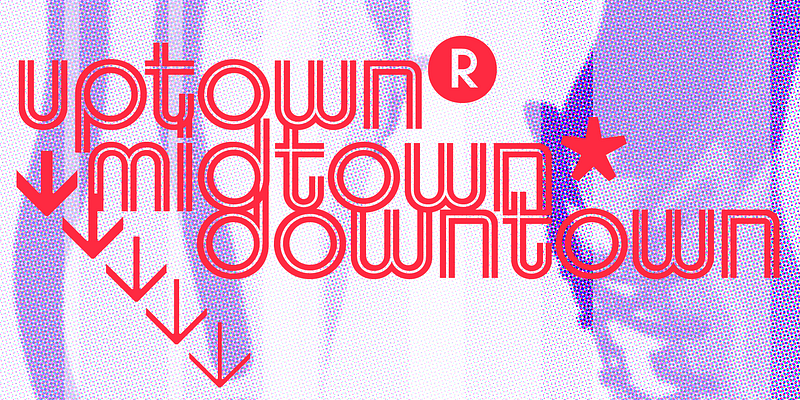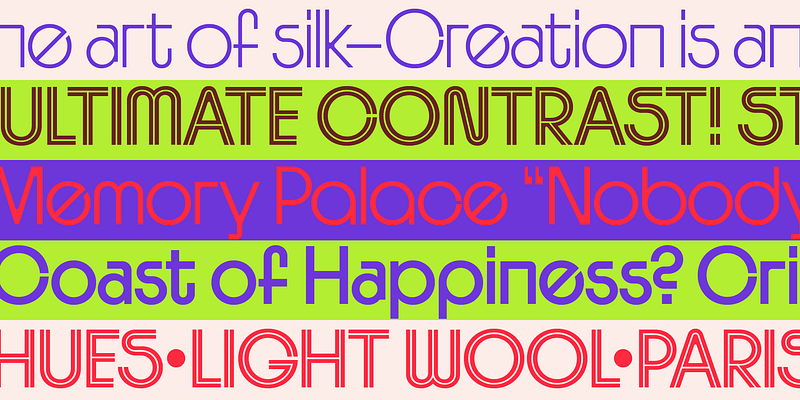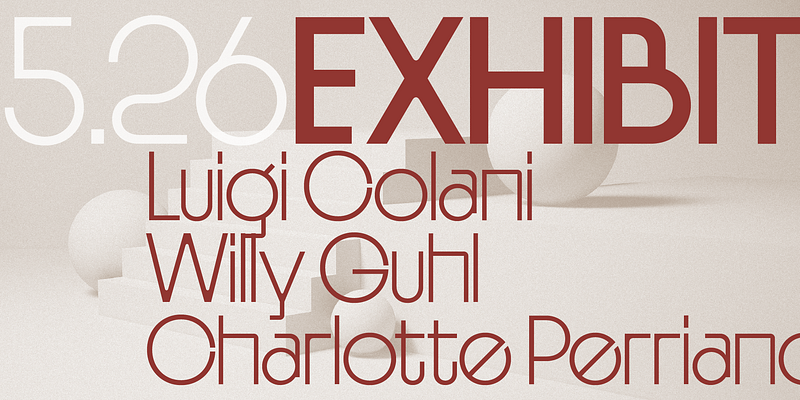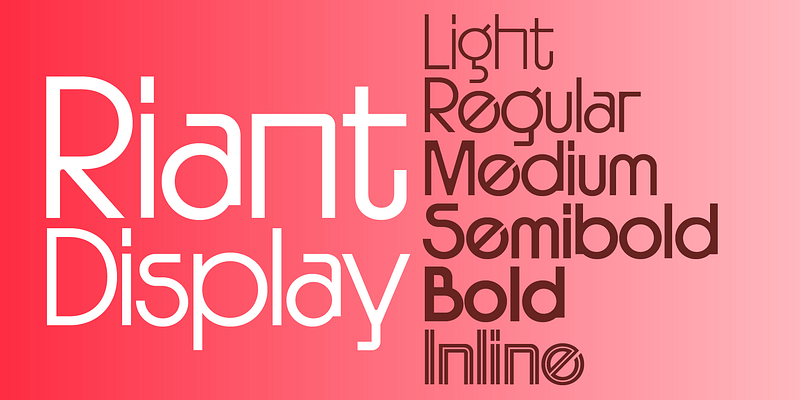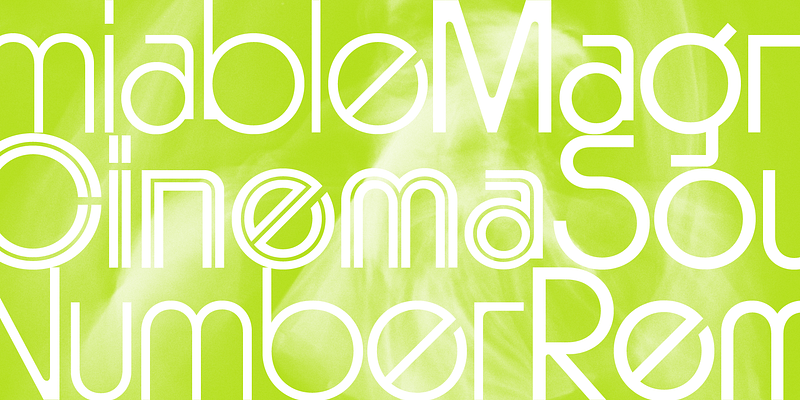
Riant Display takes cues from early 20th-century geometric sans serifs, reinterpreting them with a playful, contemporary spirit. During this era, pure forms—circles, squares, and triangles—dominated architecture, industrial design, and typography. Letterforms based on these fundamental shapes embodied the spirit of a new era that pushed the boundaries of letter design principles. Built around dynamic curves and rhythmic contrasts, Riant Display celebrates the unexpected. High-waisted s forms, and folded finials on letters like f and t add a distinctive personality to the animated texture of Riant Display. OpenType features offer a playground of variation: randomized alternates for letters like a, b, d, g, p, q, plus options for stemmed or rounded styles, inviting endless experimentation and tailored expression. Riant Display’s expressive form and harmonic proportions make it perfect for striking headlines, editorial layouts, branding, and anywhere typography takes center stage.